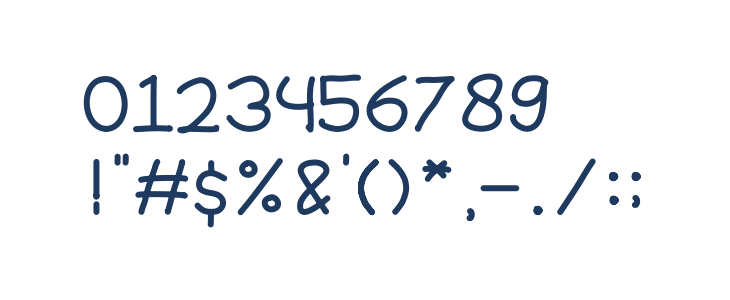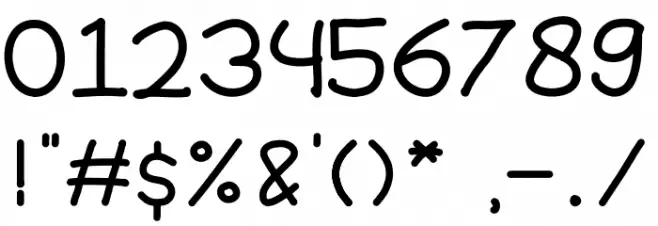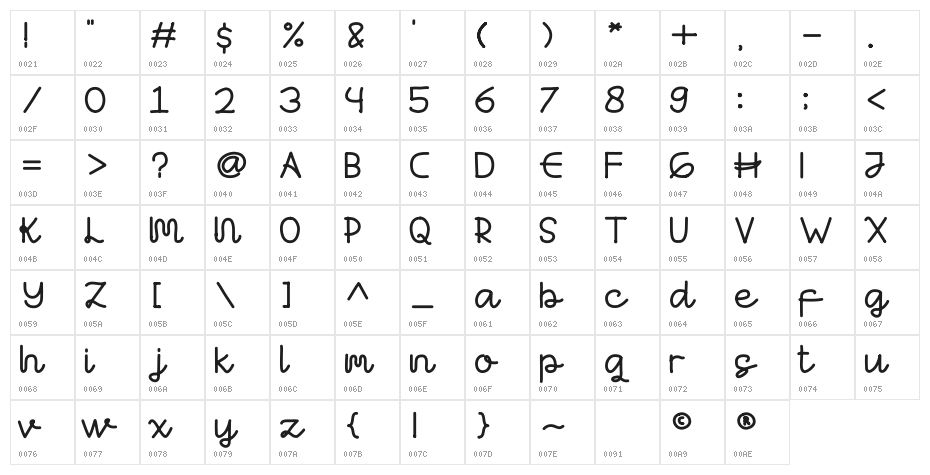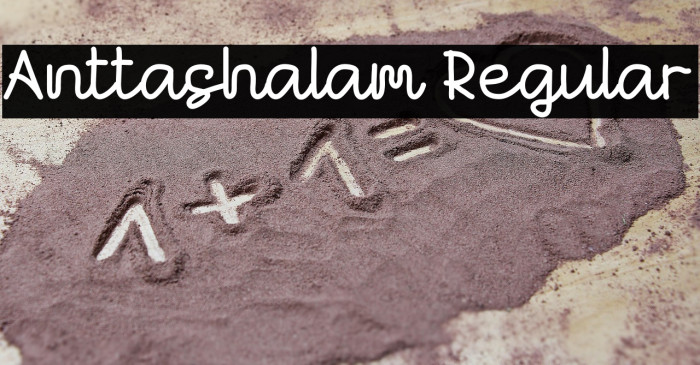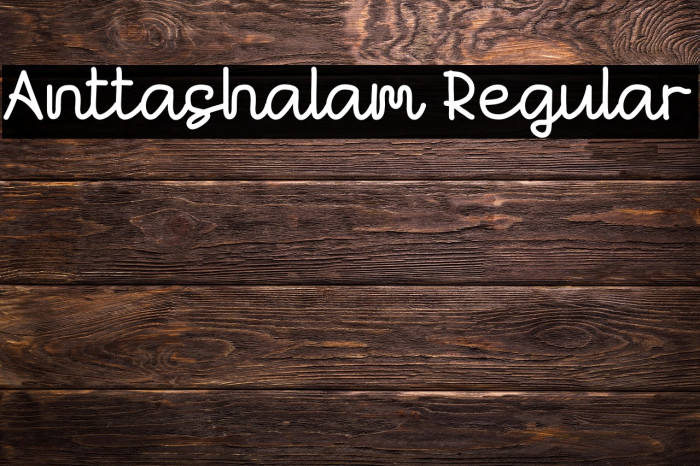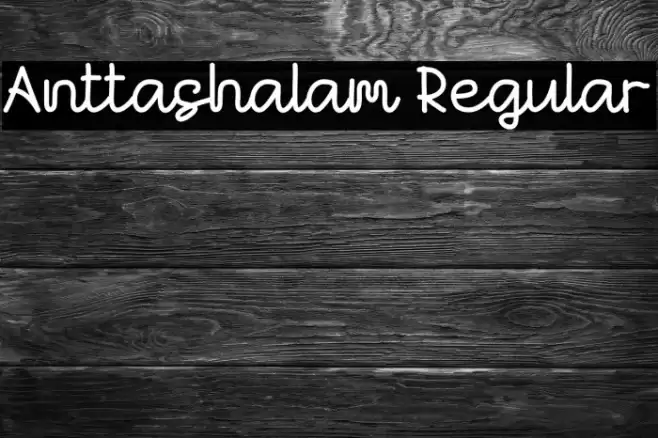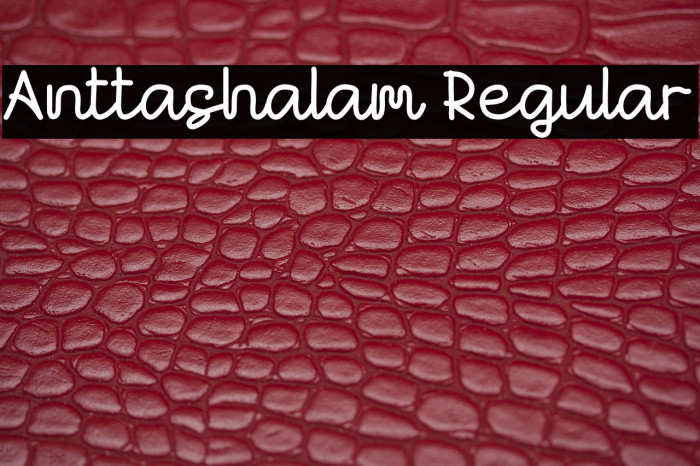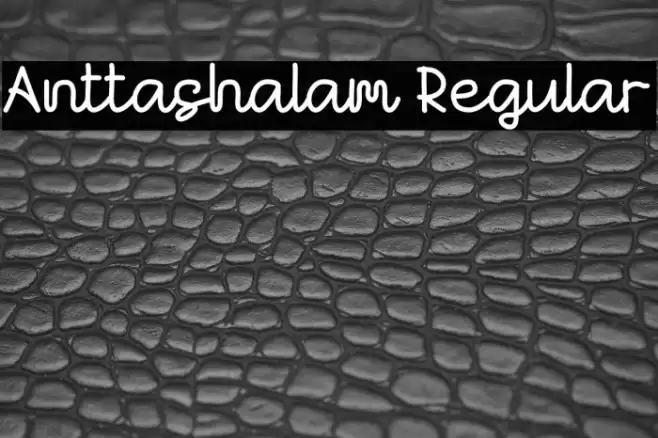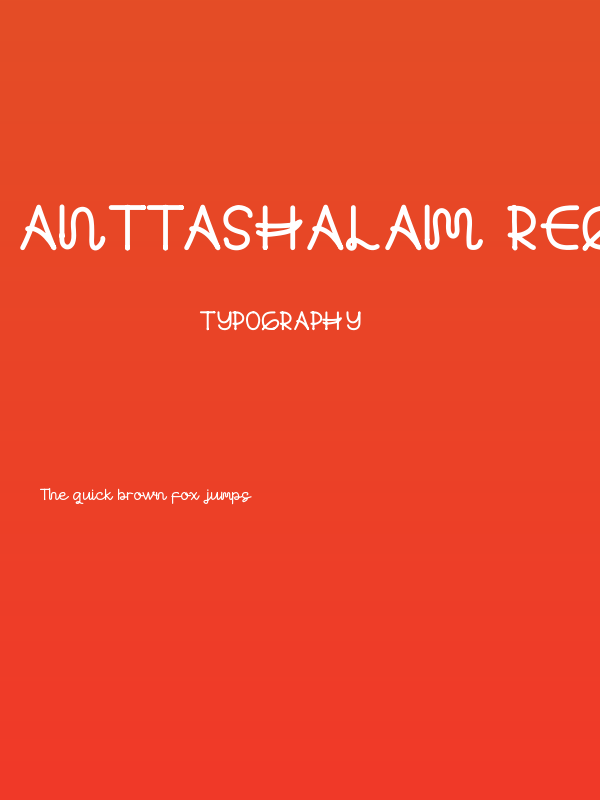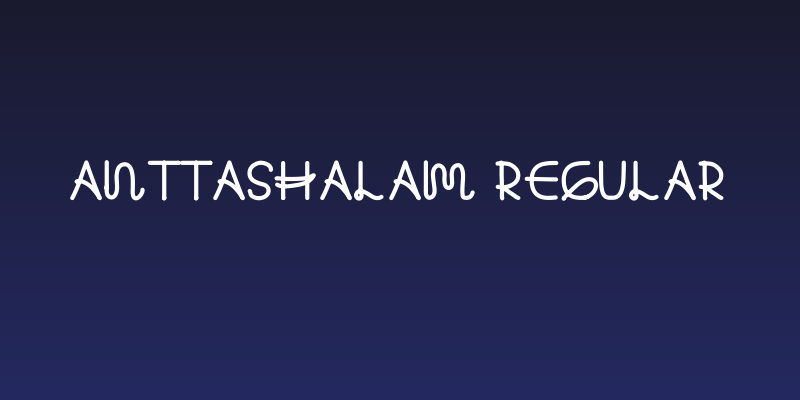
Anttashalam Regular Font
Anttashalam Regular Description
This font features a playful and casual handwritten style with smooth, rounded edges and a consistent stroke width. The characters are connected in a cursive manner, giving it a fluid and dynamic appearance. Uppercase and lowercase letters maintain a uniform height, enhancing readability while adding a touch of whimsy. The numerals and special characters are designed to match the overall style, ensuring a cohesive look across all text. This font is perfect for projects that require a friendly and approachable aesthetic.